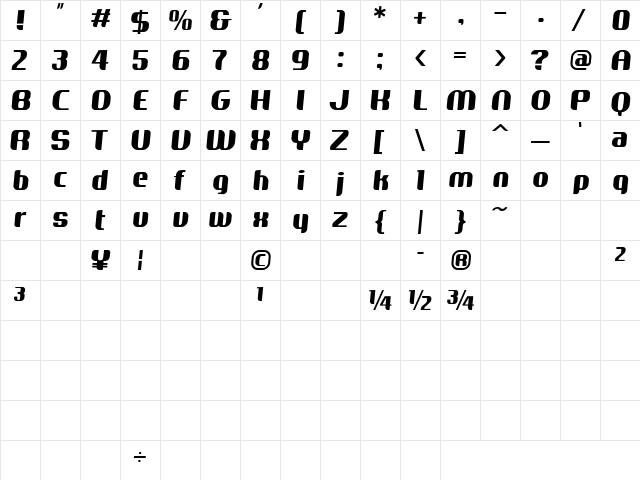
Cameliabold Regular
Design Context for Cameliabold Typeface
Cameliabold offers clean, dependable letterforms without strong stylistic allegiance, making it a practical choice for designers who need flexibility. Its bold stroke weight gives it real presence on the page.